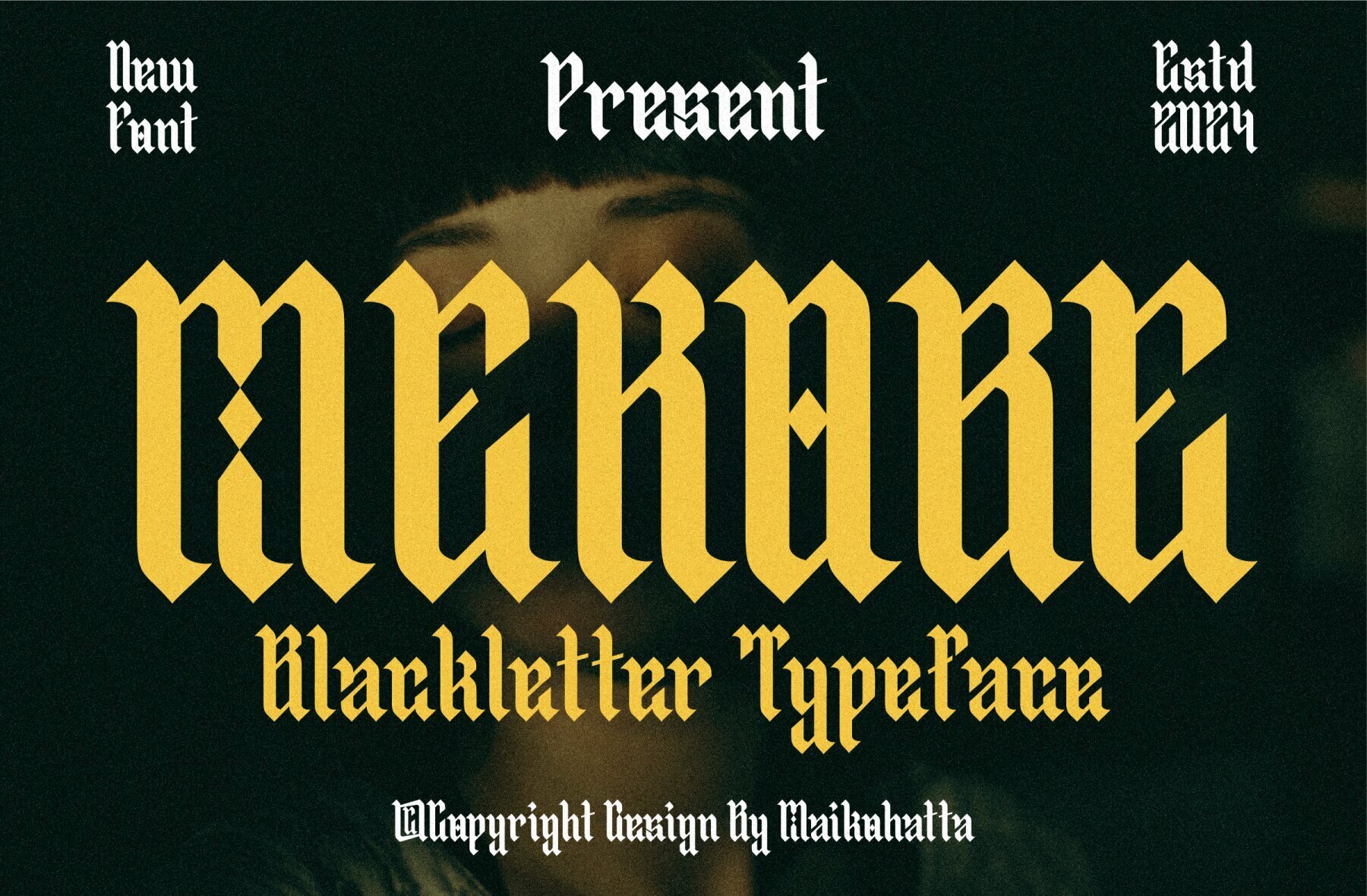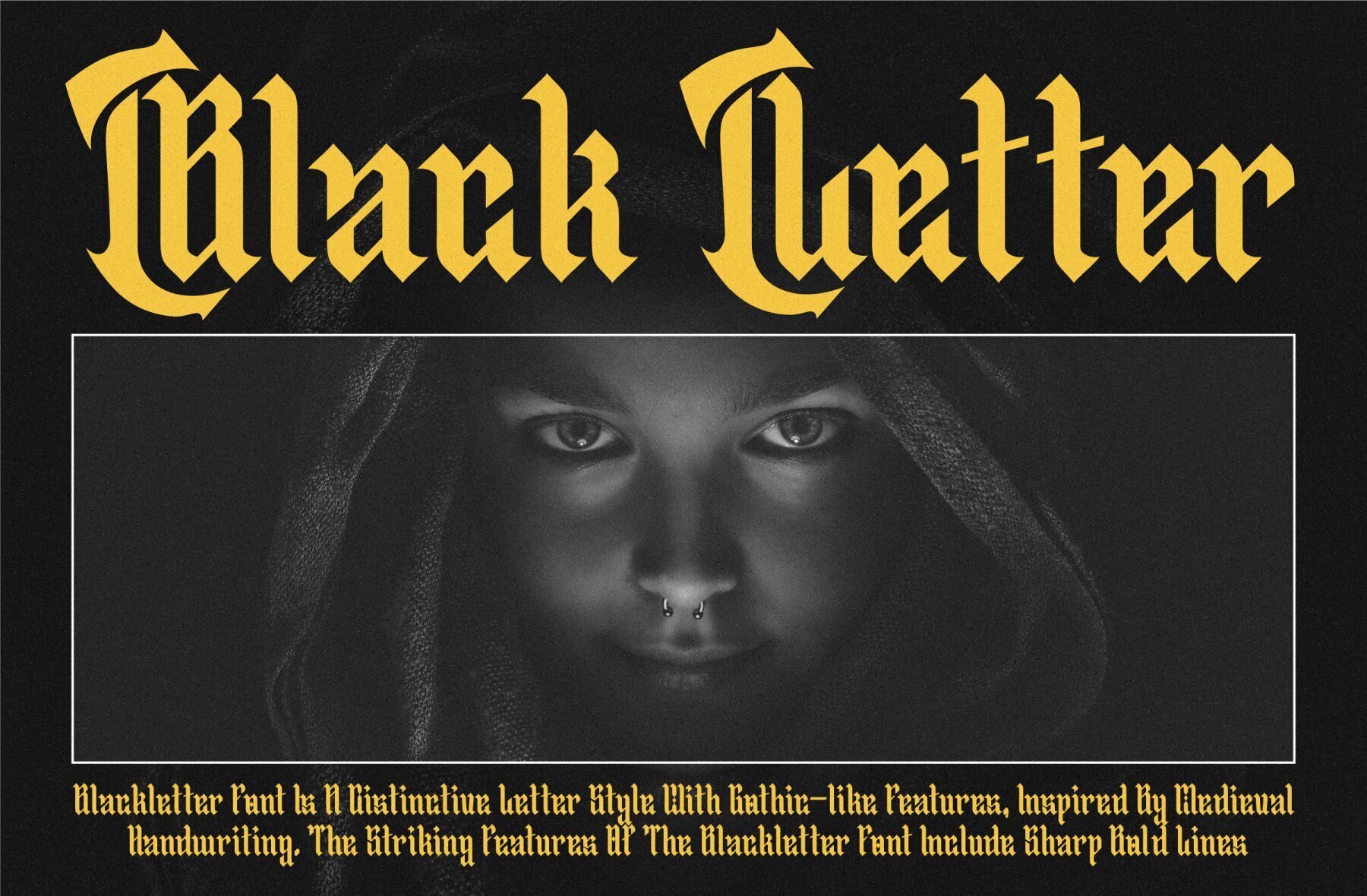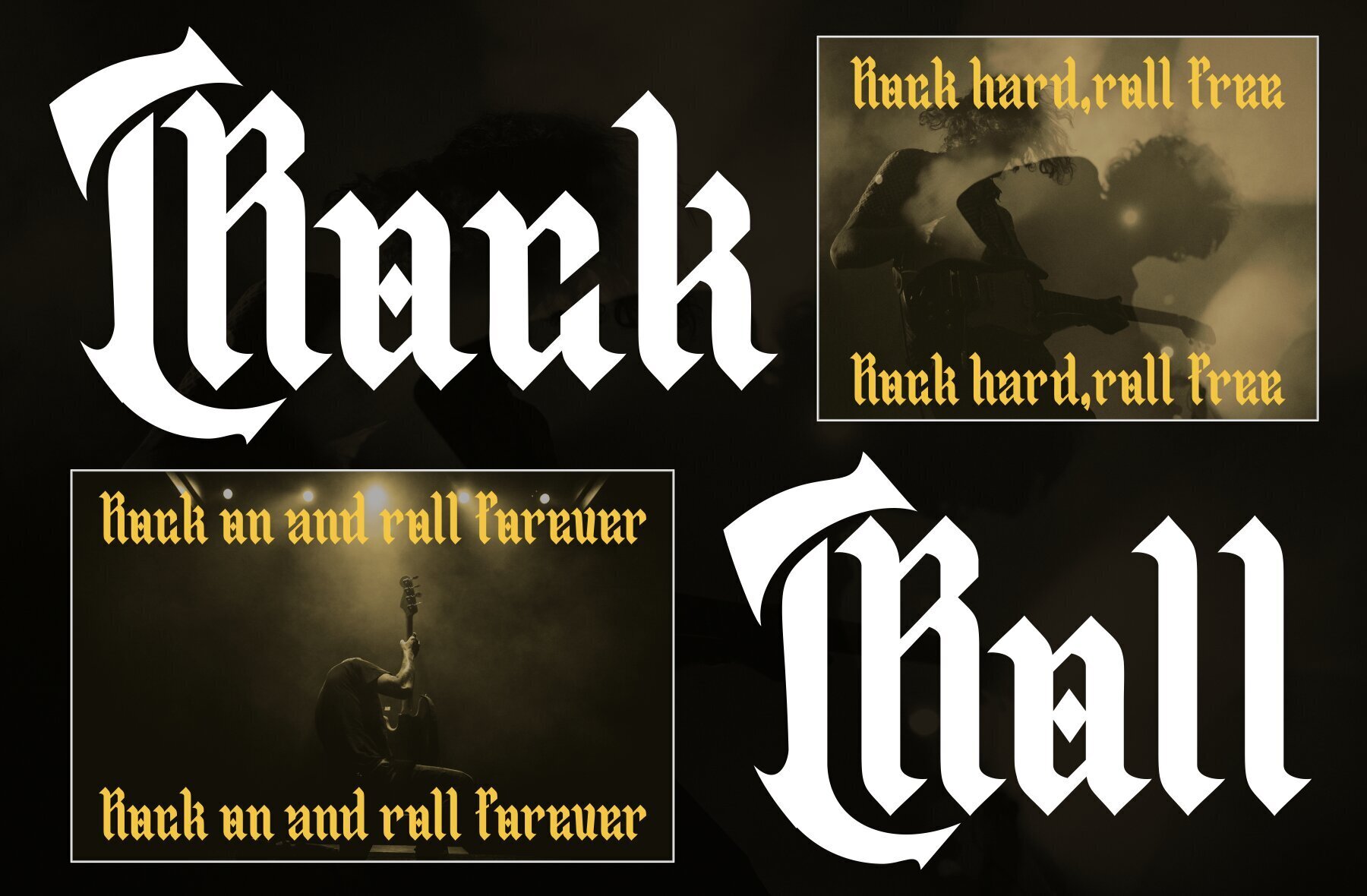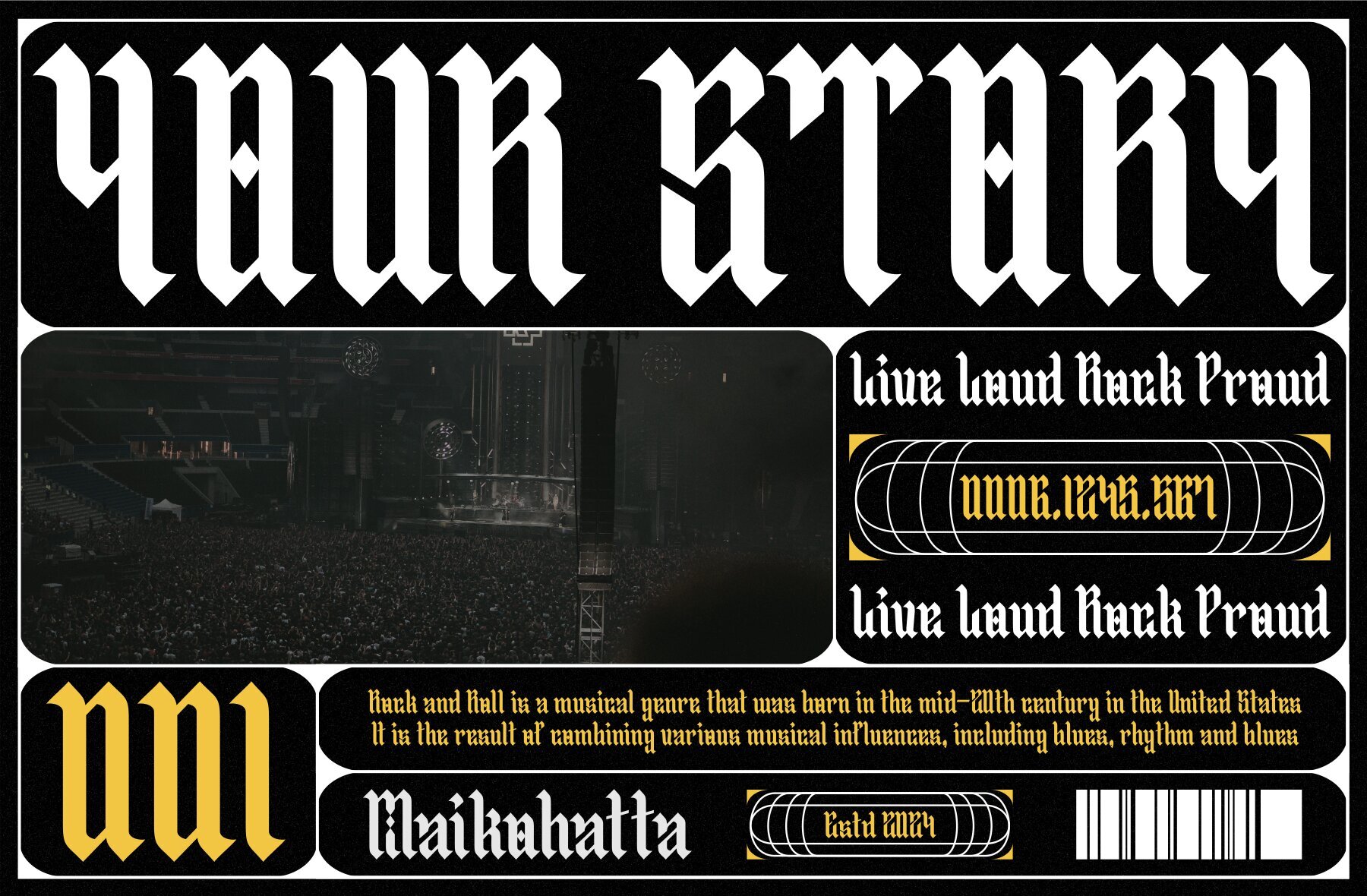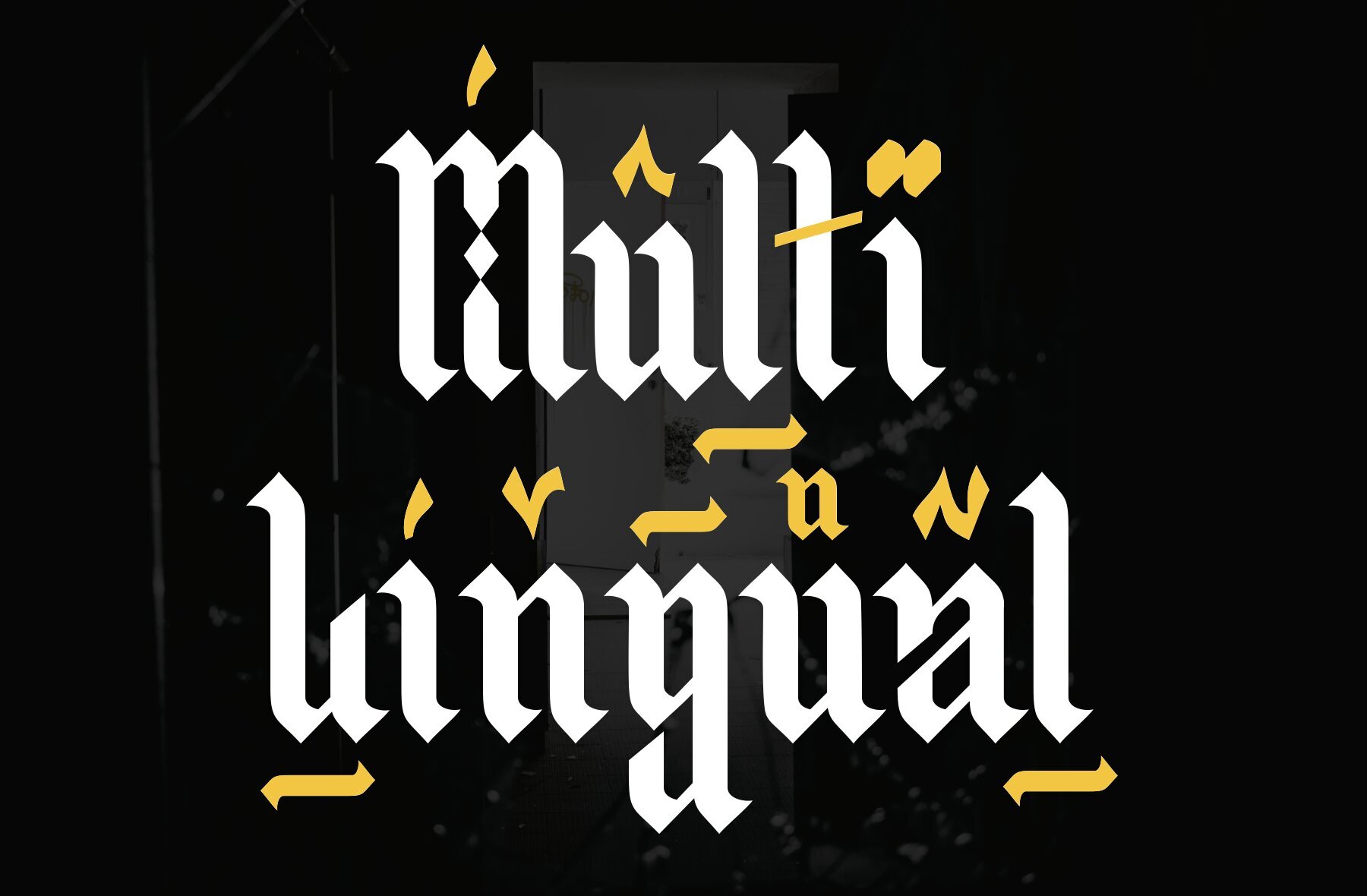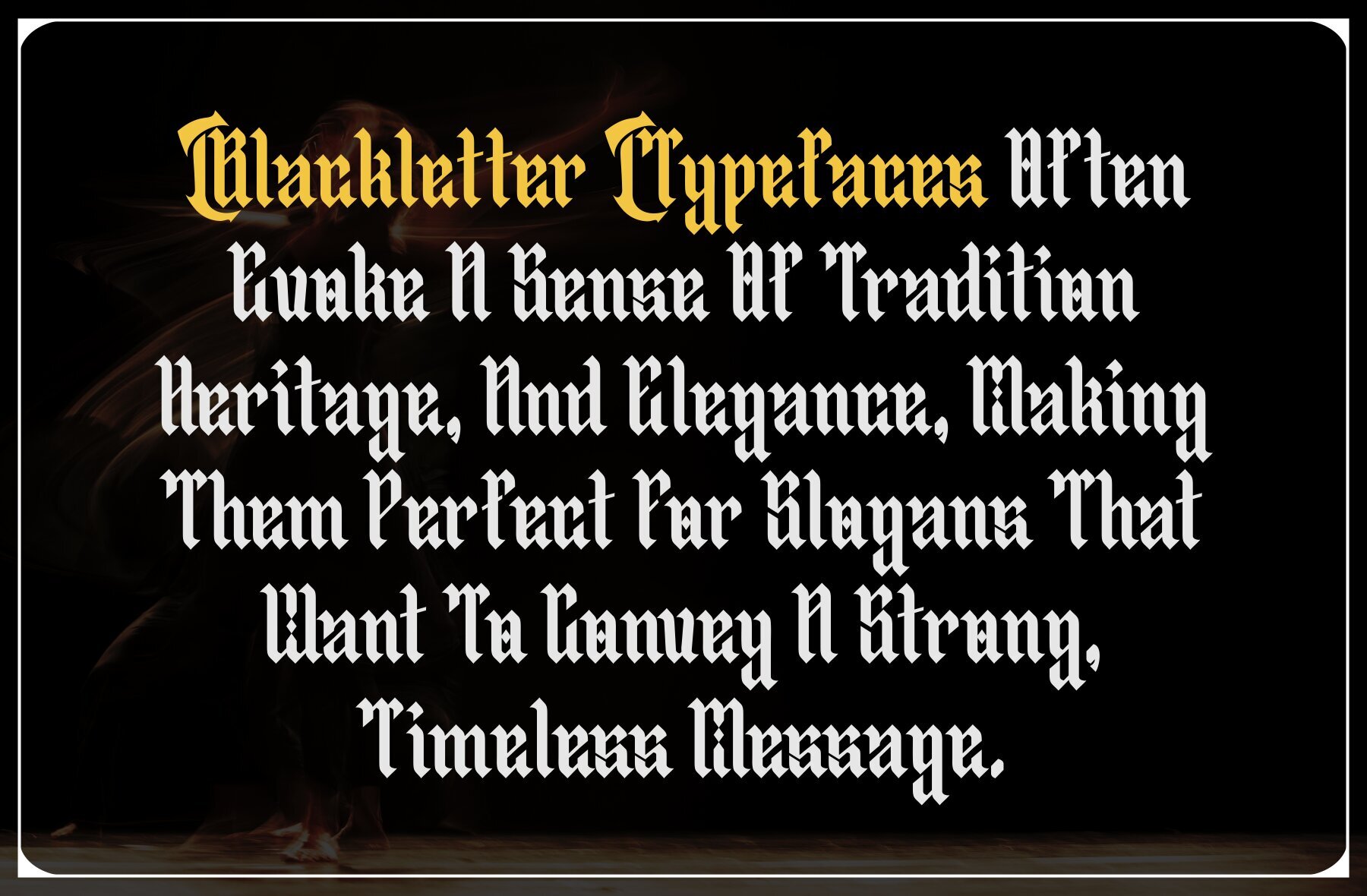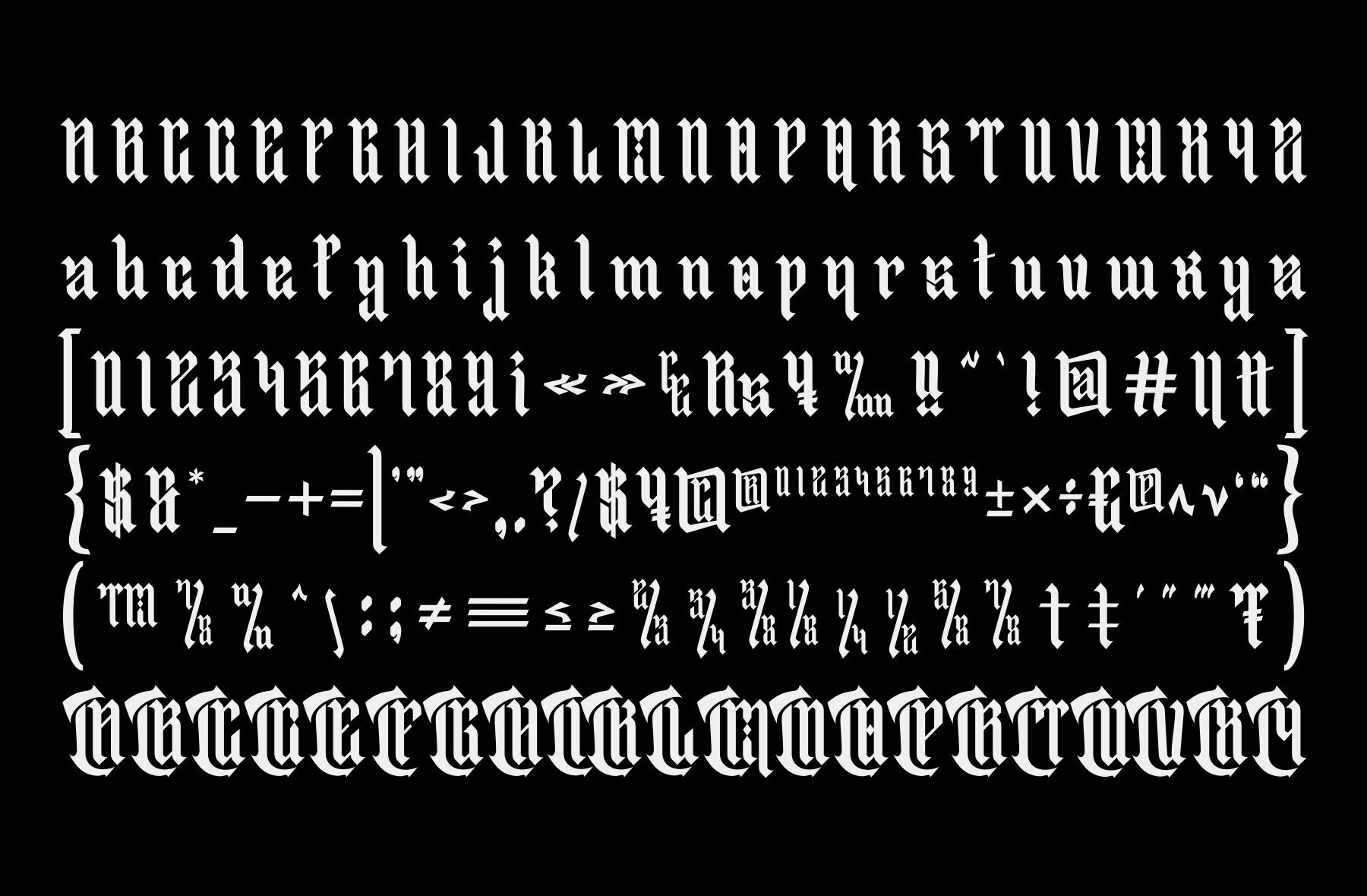
Mekobe Font
This blackletter font is perfect for projects that require a historic or Gothic feel. With its bold, ornate, and intricate design, it brings a sense of old-world elegance and sophistication. Ideal for formal invitations, classic-themed posters, vintage branding, or any design needing a touch of medieval flair.